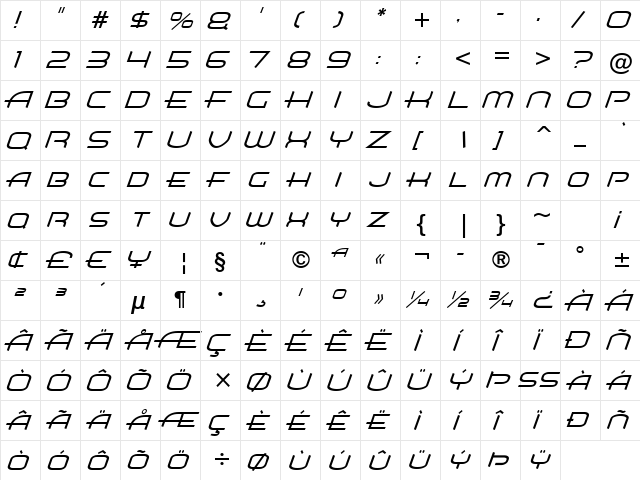
Air Flow BTN Lt Oblique
Design Context for Air Flow BTN Lt Typeface
Air Flow BTN Lt is a composed and adaptable typeface that performs quietly and consistently across a wide range of design contexts. The slanted form adds forward momentum and visual energy. Its slender proportions lend an understated elegance to any composition.
Pro Tip: Use Air Flow BTN Lt for emphasis, pull quotes, and subheadings where its slanted energy can add rhythm to the layout.